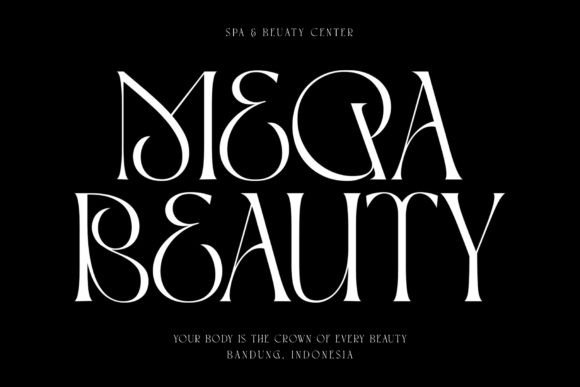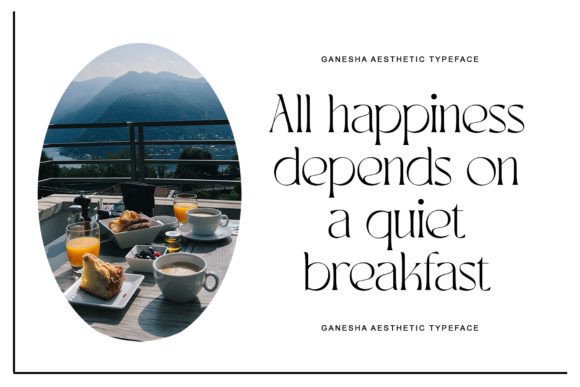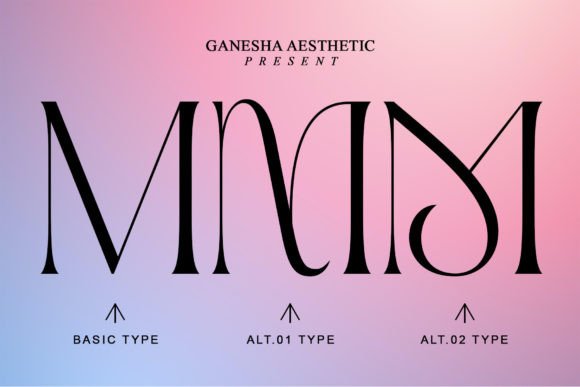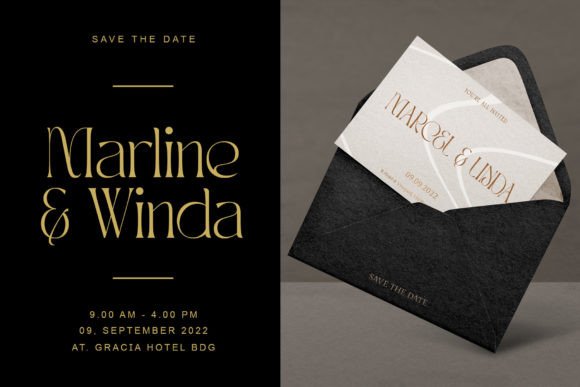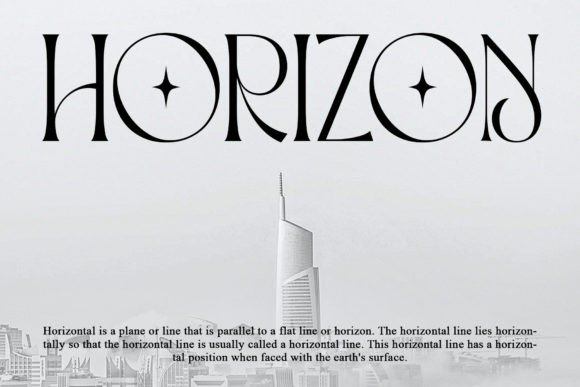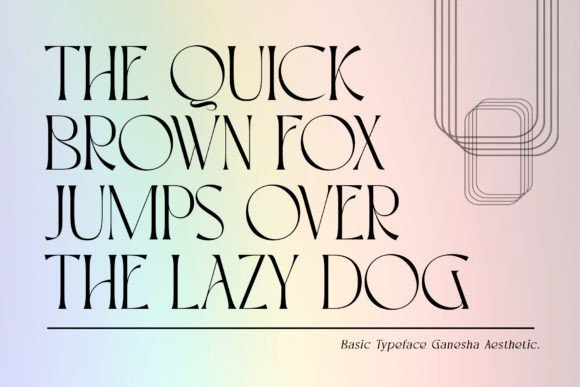
Ganesha Aesthetic Font: Elevate Your Designs with Elegance and Sophistication
In the realm of typography, a font can make or break the visual appeal of a design. For designers and crafters seeking to infuse their creations with a touch of elegance and sophistication, the Ganesha Aesthetic Font is an exceptional choice. This modern style serif font is a masterful blend of regular and stylish letters, meticulously crafted to produce a beautiful, elegant font that can elevate any design to new heights.
What Makes Ganesha Aesthetic Font Stand Out?
Ganesha Aesthetic is not just another font; it’s a design statement. Its unique blend of classic serif elements with modern stylistic twists sets it apart from more traditional fonts. The beautiful curves and lines are crafted with pinpoint accuracy, ensuring that each letterform is not only aesthetically pleasing but also highly legible. This makes Ganesha Aesthetic perfect for a wide range of applications, from branding designs and logos to greeting cards, title packaging, and beyond.
Key Features of Ganesha Aesthetic Font
- Modern Style Serif Font: Ganesha Aesthetic brings a fresh take on traditional serif fonts, offering a modern look that can add depth and character to any design.
- Elegant and Beautiful Curves: The font’s design emphasizes beautiful curves and lines, providing an elegant feel that can enhance the visual appeal of your designs.
- Versatility: Whether you’re working on branding designs, logos, greeting cards, or title packaging, Ganesha Aesthetic can help you create stunning visual content.
- High Legibility: Despite its stylistic elements, the font maintains high legibility, ensuring that your message is conveyed clearly and effectively.
Applications of Ganesha Aesthetic Font
The versatility of Ganesha Aesthetic Font makes it suitable for various design projects. Here are some of the key areas where this font can make a significant impact:
- Branding Designs: Use Ganesha Aesthetic to create a memorable brand identity that stands out from the competition. The font’s elegance and modernity can help convey a sophisticated brand image.
- Logos: A well-designed logo is crucial for any brand. Ganesha Aesthetic’s unique style can help you create a logo that is both distinctive and appealing.
- Greeting Cards: Add a touch of elegance to your greeting cards with Ganesha Aesthetic. The font’s beautiful curves and lines can make any card feel special.
- Title Packaging: For designers working on book covers, magazine layouts, or product packaging, Ganesha Aesthetic can provide that extra flair to make your titles stand out.
Why Choose Ganesha Aesthetic Font?
In a world where design trends are constantly evolving, having a font that can adapt and stand the test of time is invaluable. Ganesha Aesthetic Font offers:
- Timeless Elegance: Its classic serif base ensures that it remains elegant and relevant across various design trends.
- Flexibility: The mix of regular and stylish letters allows for creative flexibility, making it suitable for a broad spectrum of design projects.
- Attention to Detail: Crafted with meticulous attention to detail, Ganesha Aesthetic reflects a high level of professionalism in any design.
Ganesha Aesthetic Font is more than just a typeface; it’s a design tool that can transform your creative projects. Its blend of modern style and classic elegance, combined with its versatility and legibility, makes it an excellent choice for designers and crafters looking to add a sophisticated touch to their work. Whether you’re aiming to create stunning branding designs, memorable logos, beautiful greeting cards, or compelling title packaging, Ganesha Aesthetic is poised to help you achieve your design goals with flair.
Embrace the elegance and sophistication of Ganesha Aesthetic Font in your next design project and discover how this beautiful, modern serif font can elevate your creations to new heights of aesthetic appeal and professional quality.